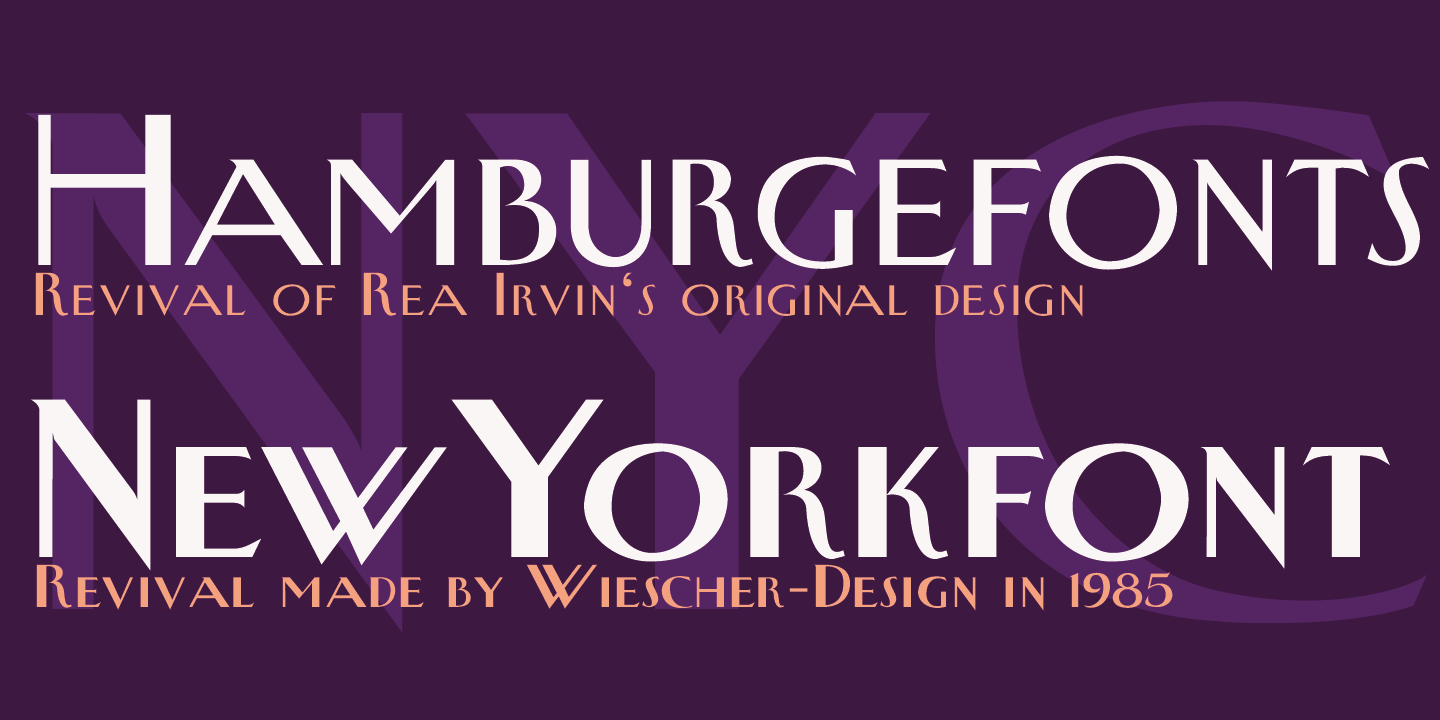
New Yorker Type Font is perfectly designed for sophisticated editorial applications including premium magazine layouts, upscale newspaper designs, literary publication covers, cultural event programs, art gallery catalogs, museum exhibition materials, high-end restaurant menus, luxury hotel branding, and refined corporate communications. Its metropolitan character makes it ideal for projects requiring intellectual sophistication and urban elegance across both print and digital publishing platforms.
What makes New Yorker Type Font exciting is its exceptional ability to capture the essence of cosmopolitan culture while maintaining timeless readability that appeals to educated audiences. This distinguished typeface features classical proportions with contemporary refinements that instantly communicate intelligence, sophistication, and cultural awareness. The font's urbane personality makes it perfect for brands seeking to connect with discerning readers and culturally engaged communities who appreciate quality journalism and artistic excellence.
New Yorker Type Font offers a comprehensive family collection including Light, Regular, Medium, Bold, and Black weights, complemented by matching Italic versions, Small Caps variants, and Display styles for maximum editorial flexibility. Each family member preserves the sophisticated core design while providing different levels of typographic hierarchy and editorial expression to accommodate complex publishing requirements and traditional magazine layout systems.
Editorial designers and publishing professionals will find New Yorker Type Font Free Download to be an indispensable tool for creating distinguished literary communications. This typeface excels in both long-form reading applications and attention-grabbing headlines, demonstrating remarkable versatility across different editorial contexts. Whether developing layouts for cultural magazines, creating book designs for literary publishers, or designing materials for arts organizations, this font consistently delivers results that reflect intellectual depth and editorial excellence.
The New Yorker Type Font demonstrates exceptional craftsmanship in its character construction, featuring optimized proportions that ensure comfortable reading experiences in extended text applications. Its comprehensive character set includes editorial symbols, typographic ornaments, and extensive multilingual support that makes it suitable for international publishing projects. The font's classical spacing and refined kerning guarantee professional appearance across all traditional and digital editorial formats.
Publishing houses particularly appreciate New Yorker Type Font for its ability to establish immediate editorial credibility and cultural sophistication. The typeface works exceptionally well for literary magazines, cultural institutions, art publications, academic presses, and intellectual commentary platforms. Its timeless appeal ensures editorial longevity while its sophisticated presence builds trust among educated readers and cultural influencers.
The editorial elegance of New Yorker Type Font makes it particularly valuable for creating comprehensive publishing systems that reflect intellectual authority. Its distinguished character creates memorable reading experiences while maintaining excellent functionality across various editorial contexts, from detailed magazine articles to large-scale cultural advertising, ensuring consistent and sophisticated brand communication across all literary touchpoints and cultural interactions.